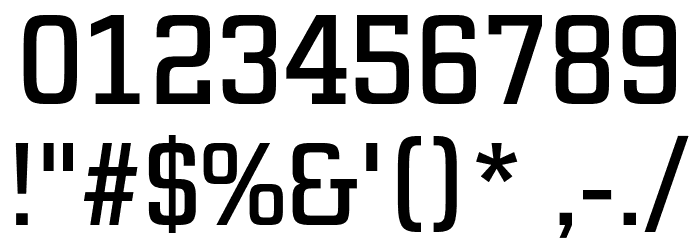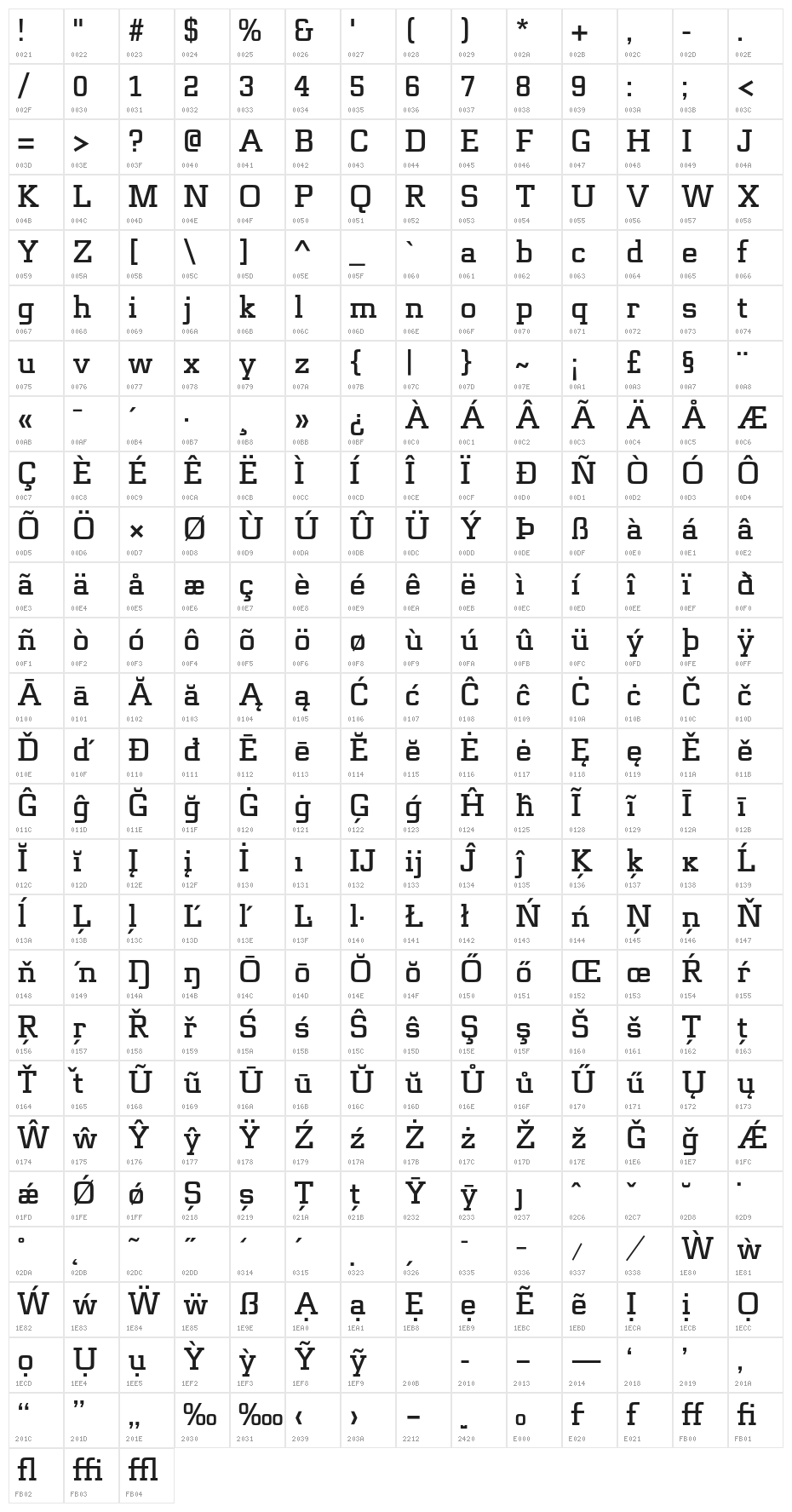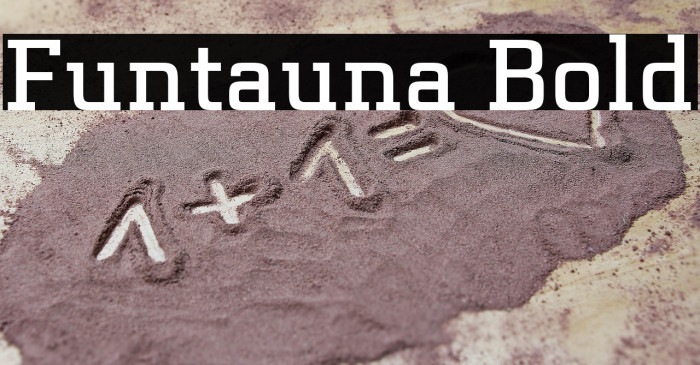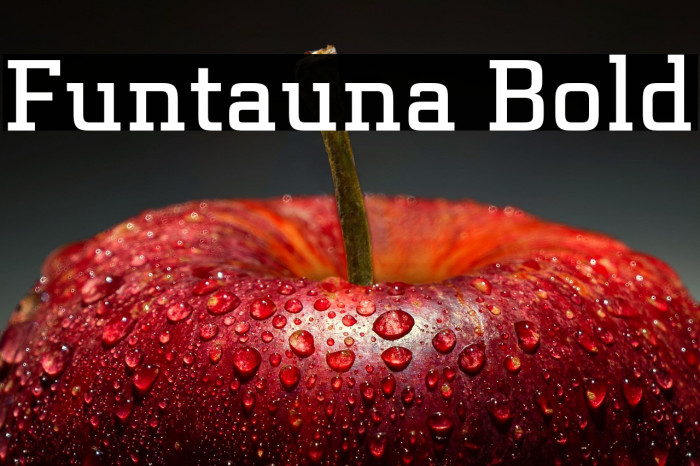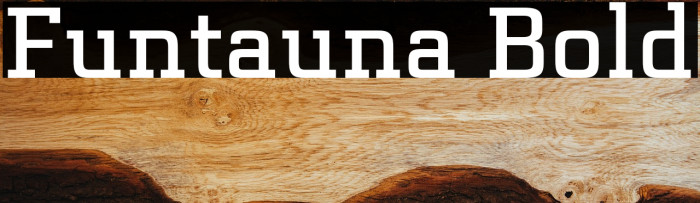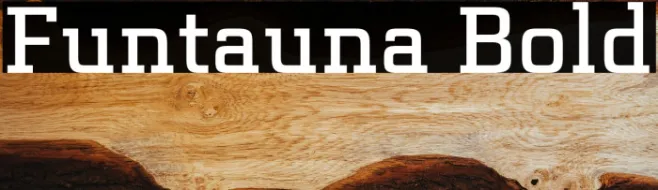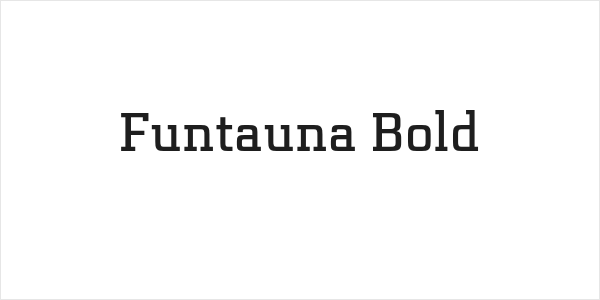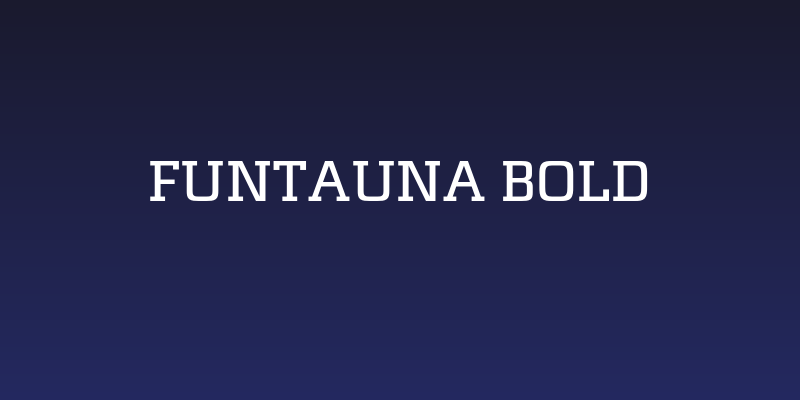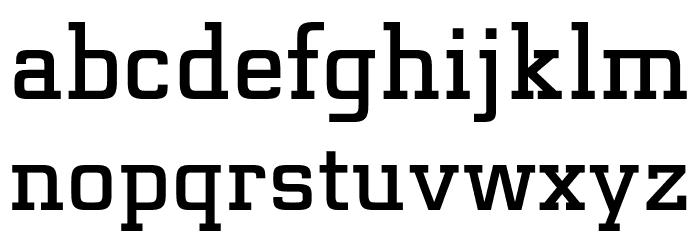
Funtauna Bold Font
Funtauna Bold Description
This font features a robust and structured design, characterized by its bold and slab serif style. The letters are uniformly thick, providing a strong and confident appearance. The uppercase characters are tall and commanding, while the lowercase letters maintain a consistent height, ensuring readability. The numerals are clear and distinct, matching the overall boldness of the font. Special characters are well-integrated, maintaining the font's cohesive look. The design is modern yet retains a classic touch, making it versatile for various applications.
| Proposed Projects | Ideal for branding, headlines, posters, and any project requiring a strong, impactful typeface. |